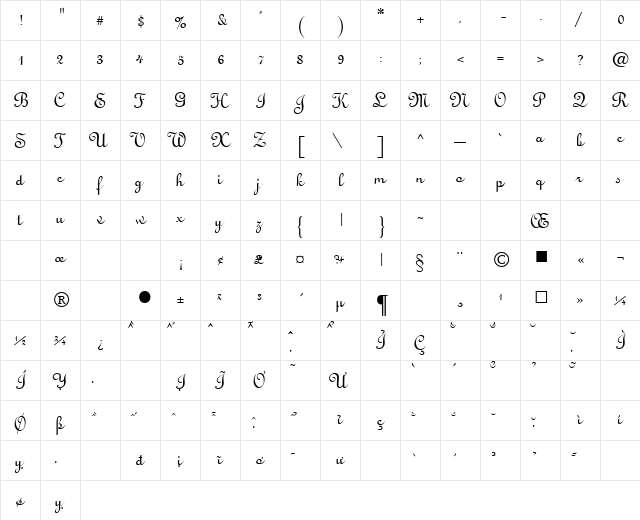
VNI-Linus Regular
Design Context for VNI-Linus Typeface
VNI-Linus is a composed and adaptable typeface that performs quietly and consistently across a wide range of design contexts.